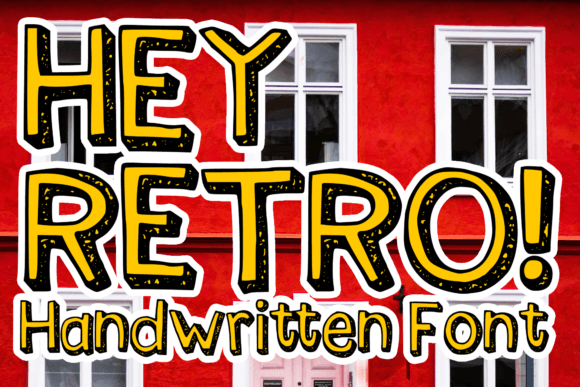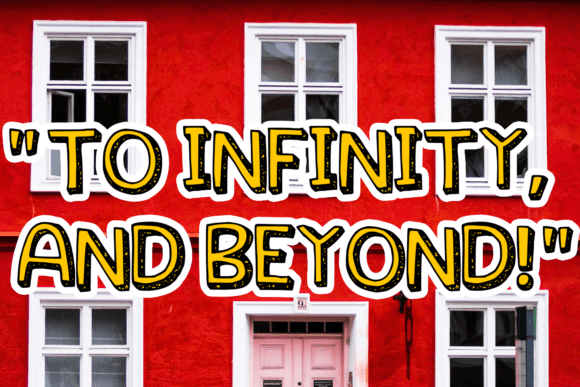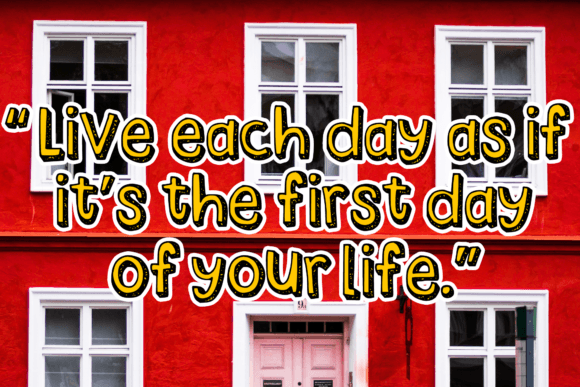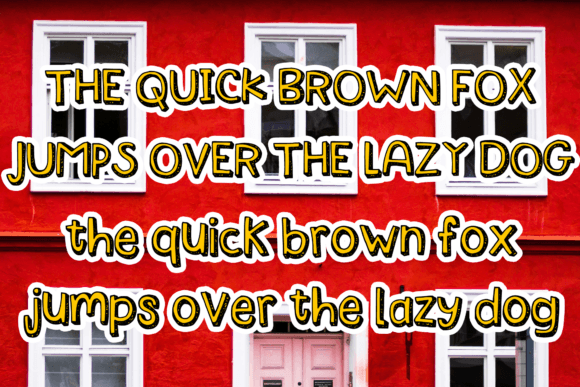
Hey Retro Font
About the Hey Retro Font
Experience the unique personality of Hey Retro Font, a font designed for impact. Hey Retro! is a cool 3D rough kids-friendly display font, you’ll love it if you want to create something with a ’90s theme. It will elevate a wide range of design projects to the highest level. You can use this font for many design ideas such as stickers, t-shirt designs, amazing logo designs, magazine or book covers, comics, cartoon drawings, and many more. This font will add a cool touch to your designs!
Hey Retro Font’s playful 3D style is ideal for headlines, logos, posters, and packaging designs needing a 90s-inspired vibe. It works exceptionally well for projects targeting a younger demographic or those with a retro-themed brand identity. However, its bold, chunky forms make it unsuitable for body text or UI elements where readability is paramount.
Pairing Hey Retro Font with a clean sans-serif like Open Sans for body copy creates a strong visual contrast, balancing the font’s playful energy with clear readability. Alternatively, a geometric sans-serif such as Futura can add a modern edge, enhancing the retro feel without overwhelming the design. Avoid pairing it with other highly decorative or script fonts to prevent visual clutter.
The font’s core personality is undeniably bold and playful, projecting a youthful, energetic, and slightly rebellious mood. This makes it perfect for brands focused on fun, creativity, and nostalgia.
Hey Retro Font Example